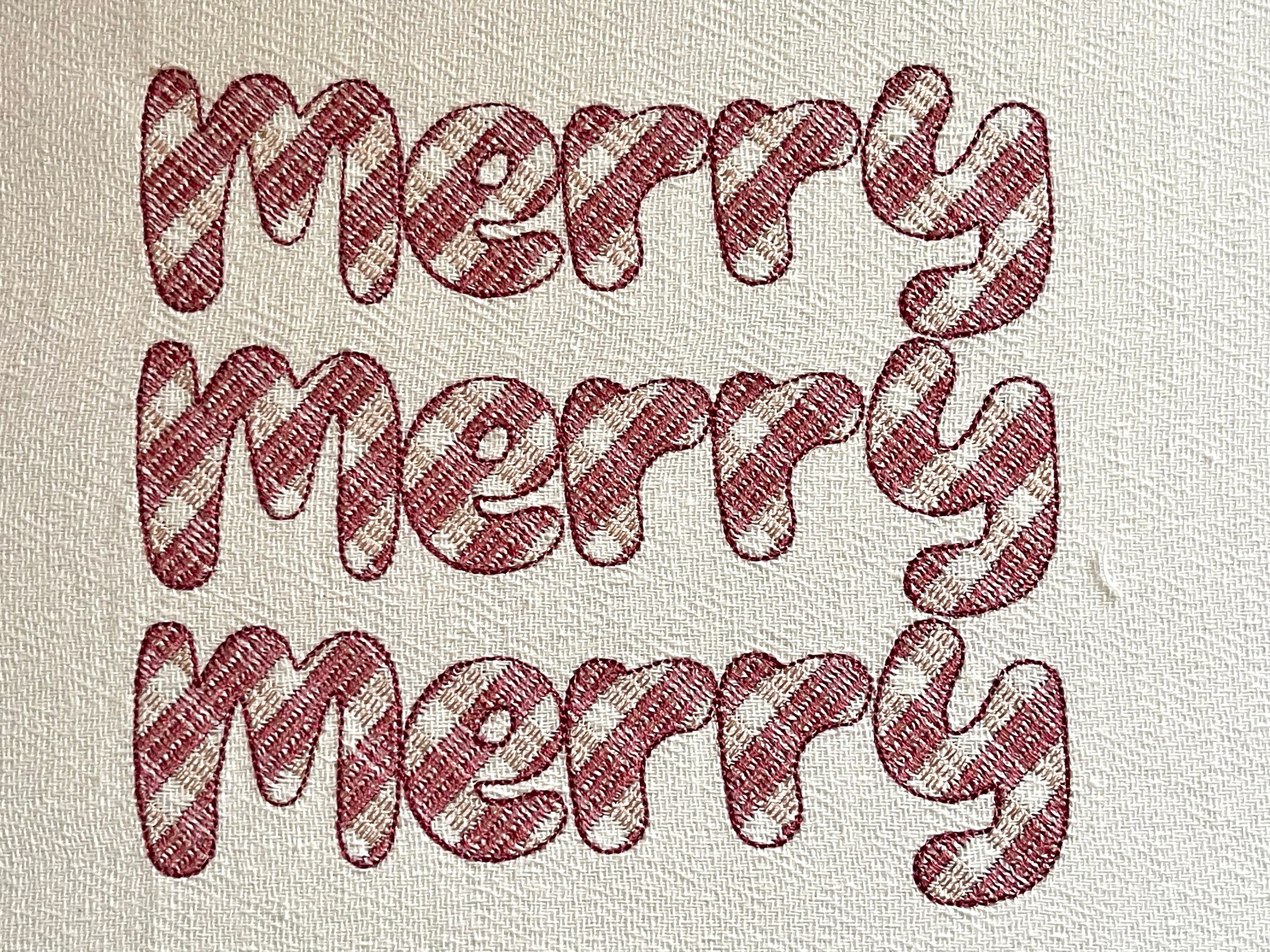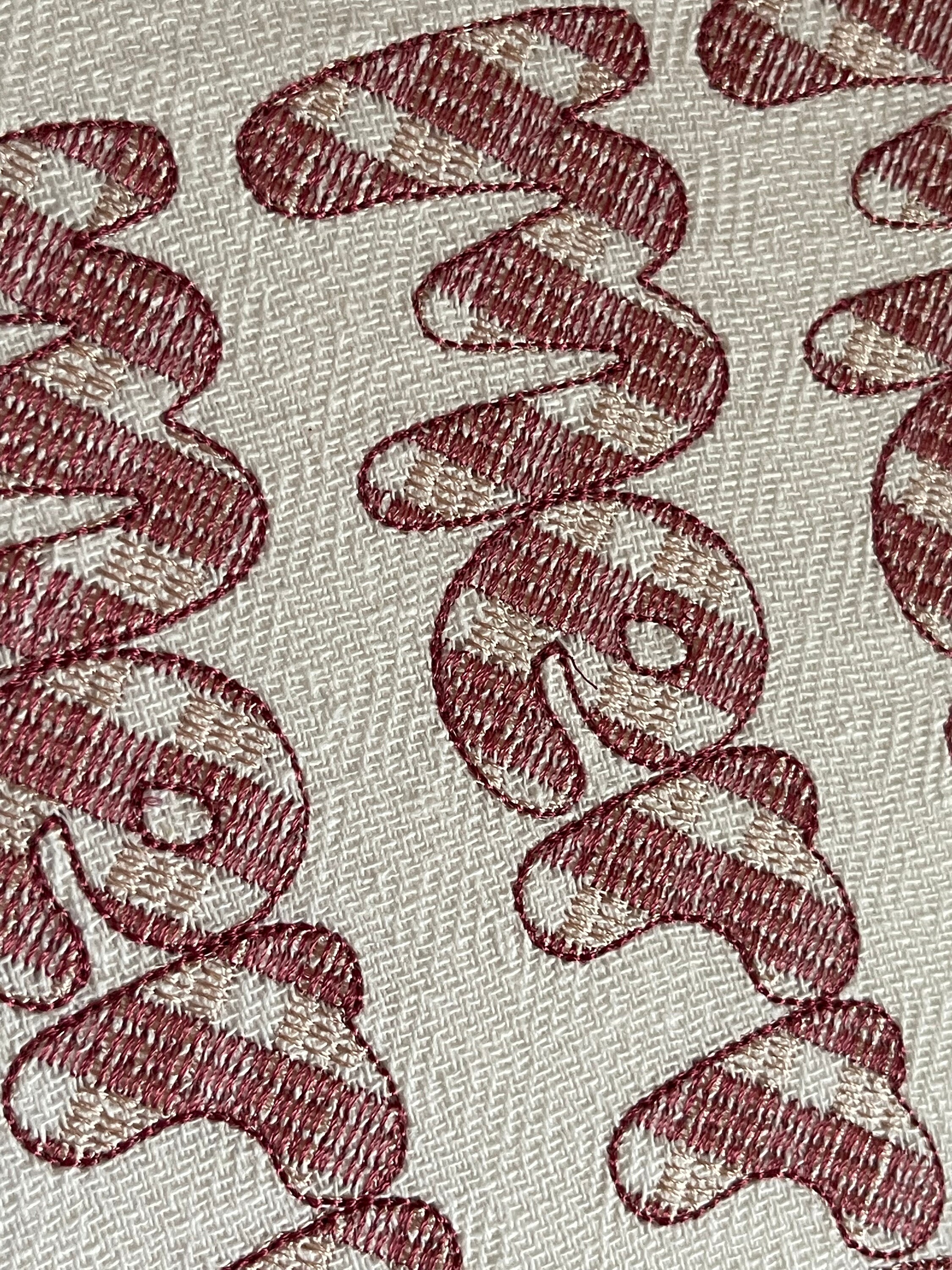
Tartan Plaid Gingham playing fun Font light sketch outline machine embroidery font alphabet letters
These are quick stitch designs, very light, the background fabric looks through. Stunning effect. Gingham lines are part of the embroidery.